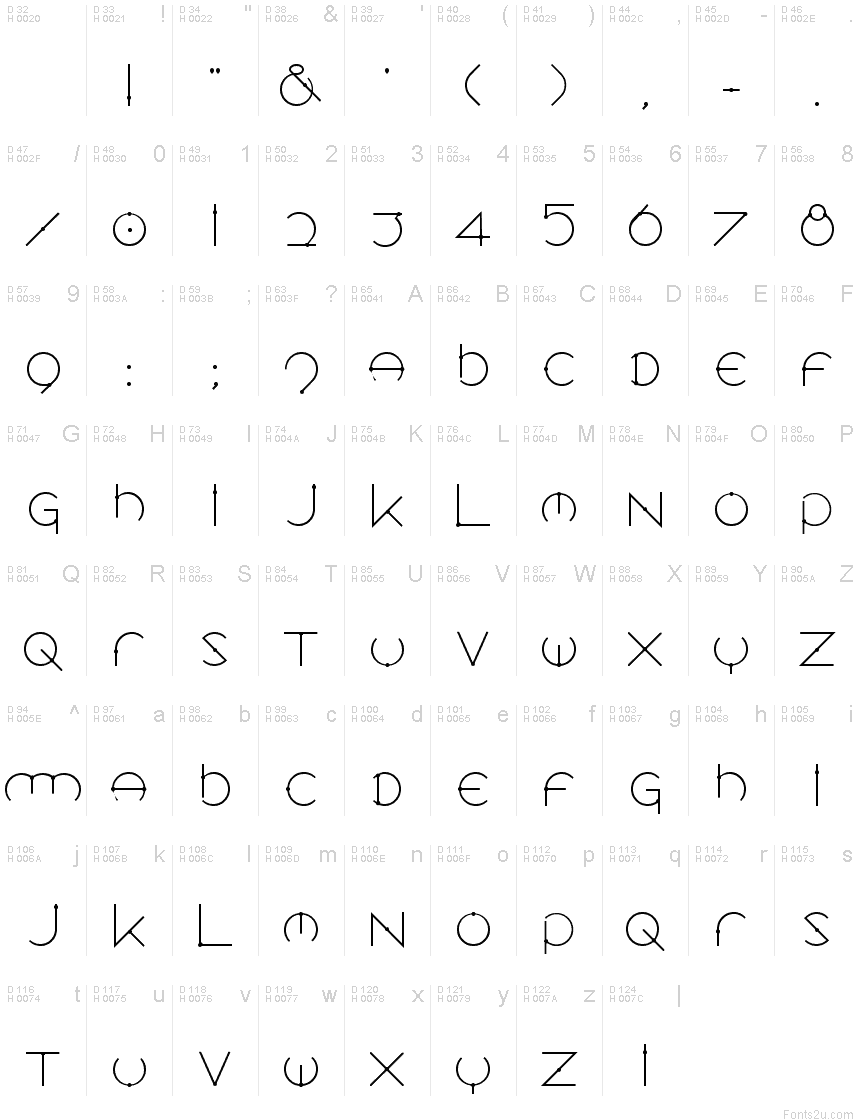
Locus Text by Matt Chisholm is a free geometric display font built from fine, even strokes, open breaks, and small circular joints. Its letters feel spare and diagrammatic.
Designers in technology, science, or experimental arts can use it for event posters, music packaging, and digital graphics. The interrupted outlines suggest paths, circuits, or plotted movement, giving simple words the quality of a constructed symbol. Those recurring dots can also echo nodes in maps or technical illustrations, making the lettering part of the subject rather than a neutral caption.